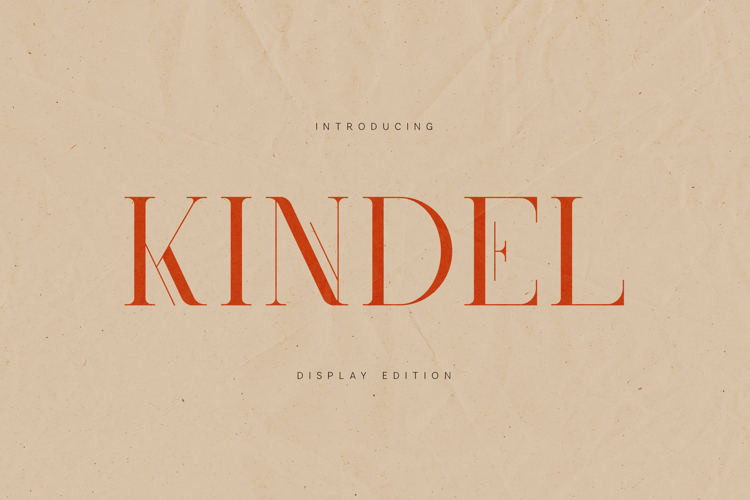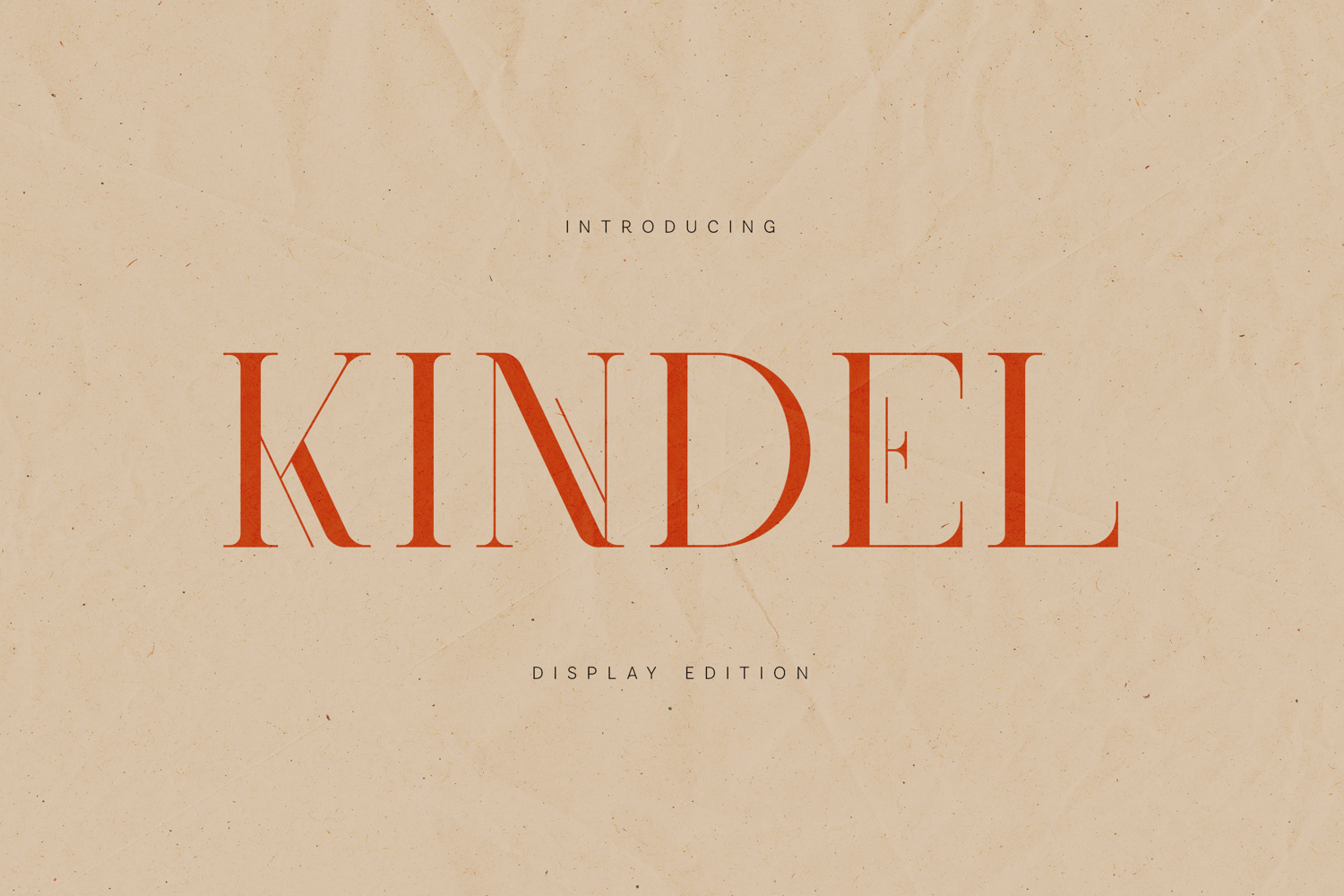
Kindel Display Serif Font Elegant Modern Editorial Typeface
Kindel is a refined high-contrast display serif designed for elegant editorial work, luxury branding, and sophisticated visual identities.
With its sculpted letterforms, sharp serifs, and distinctive inline detailing, Kindel blends classical inspiration with a contemporary edge. It’s perfect for magazine covers, fashion campaigns, beauty packaging, luxury logos, book covers, and artistic typography compositions.
This typeface supports extended Latin characters, multilingual accents, numerals, and punctuation — making it ideal for international branding projects.
Kindel brings grace, contrast, and confidence to every layout.
Editorial design
Luxury branding
Fashion typography
Logotypes
Packaging
Social media graphics
Poster design
Designed to stand out beautifully in large sizes.